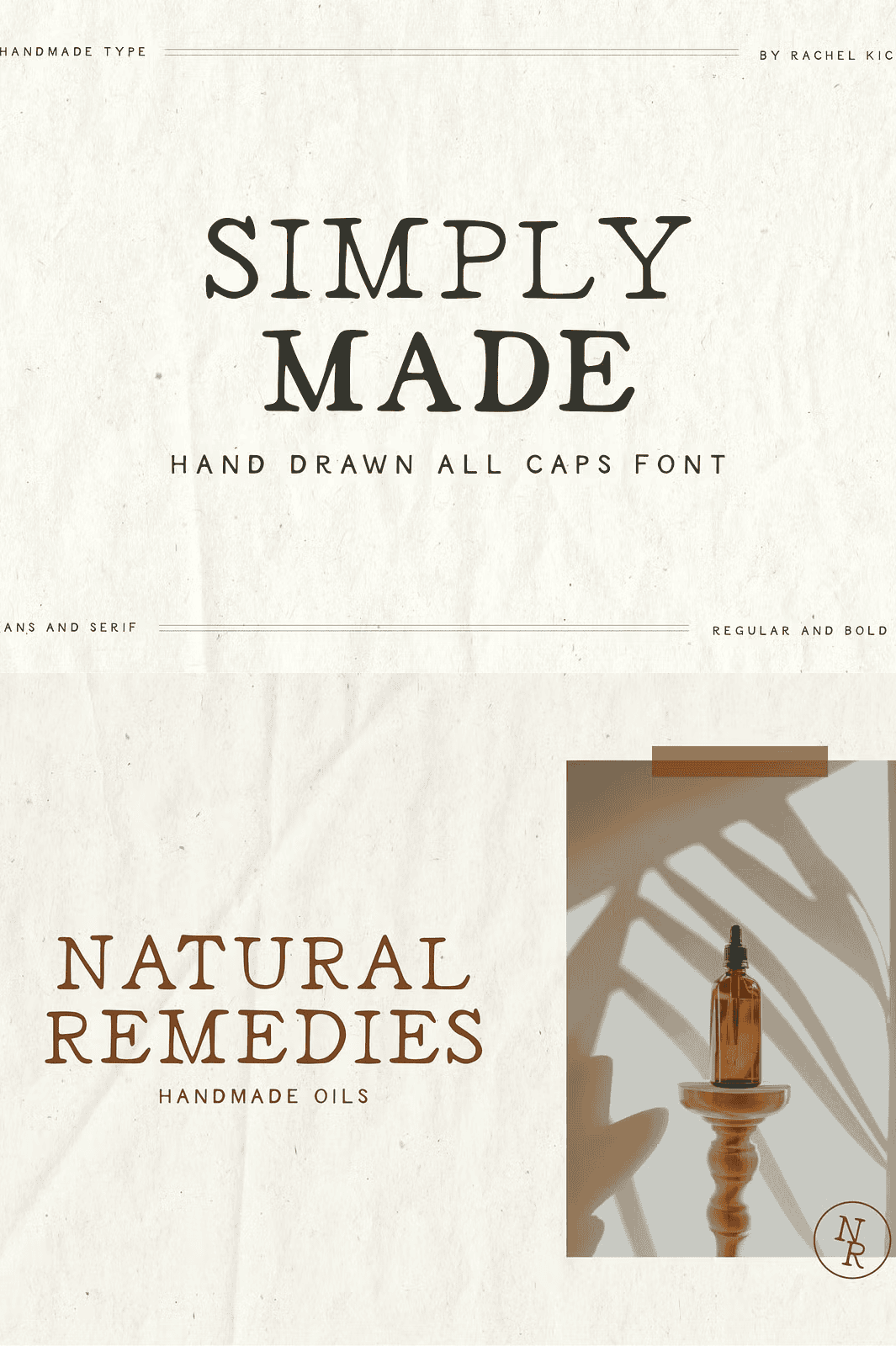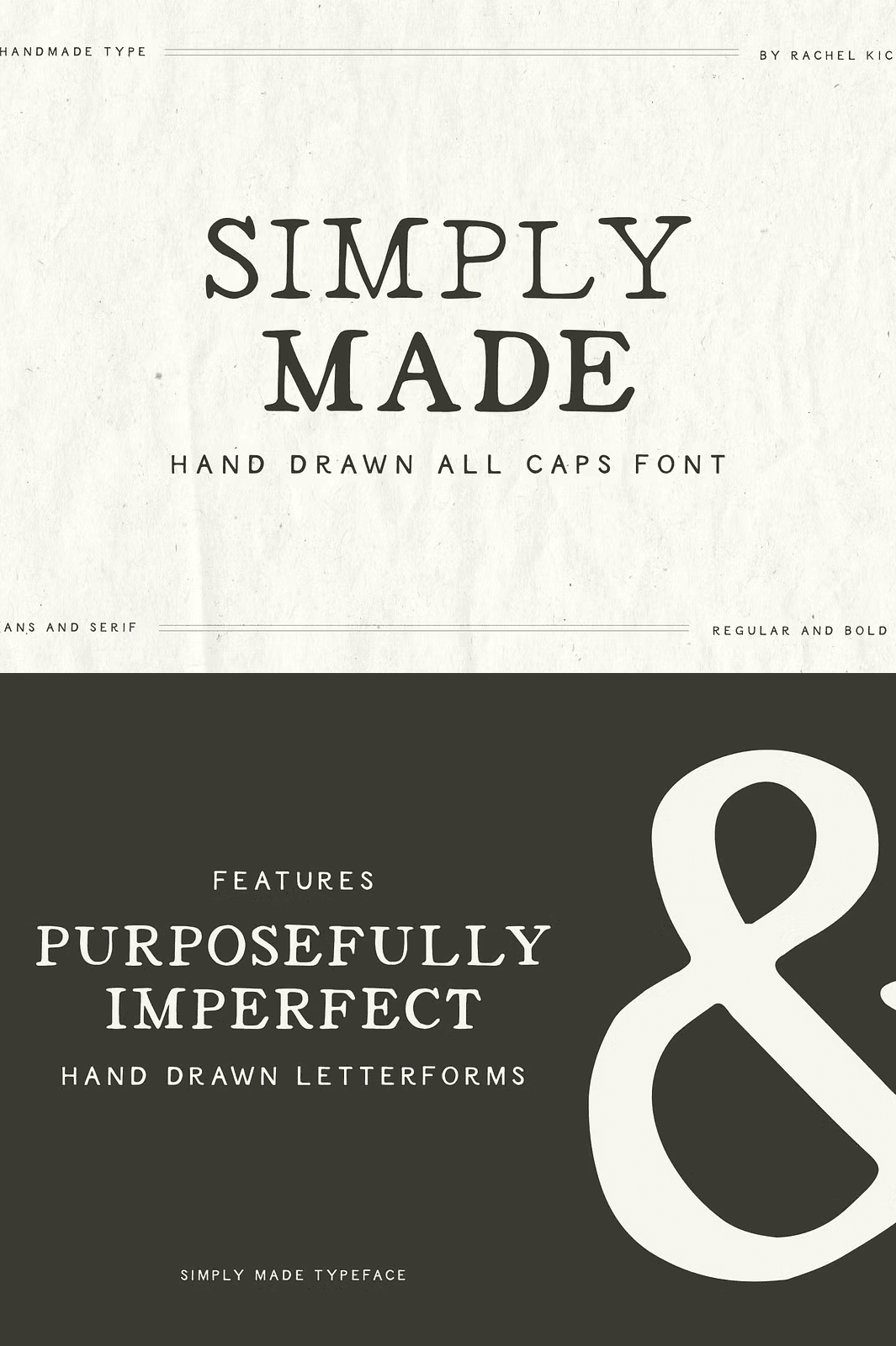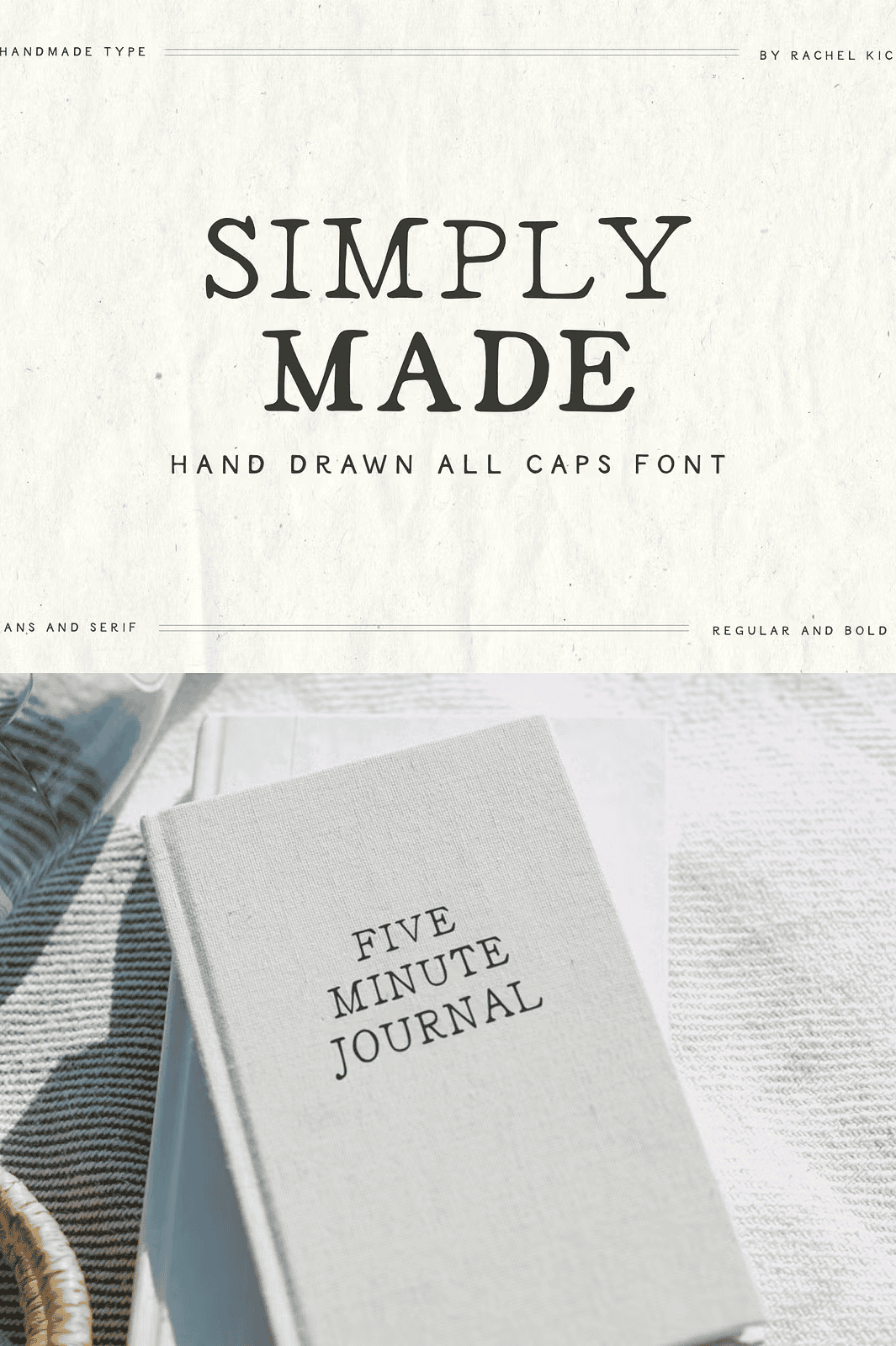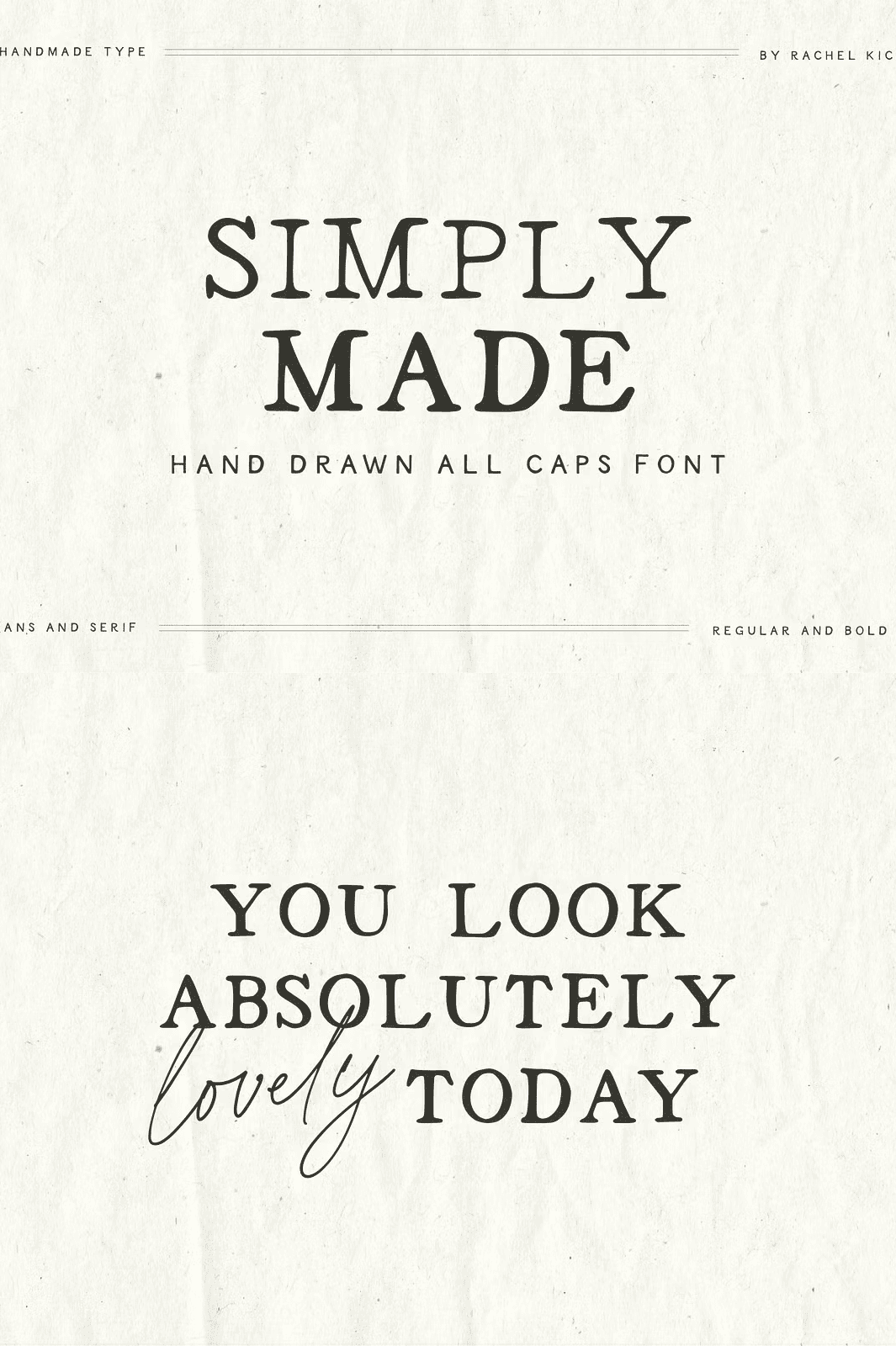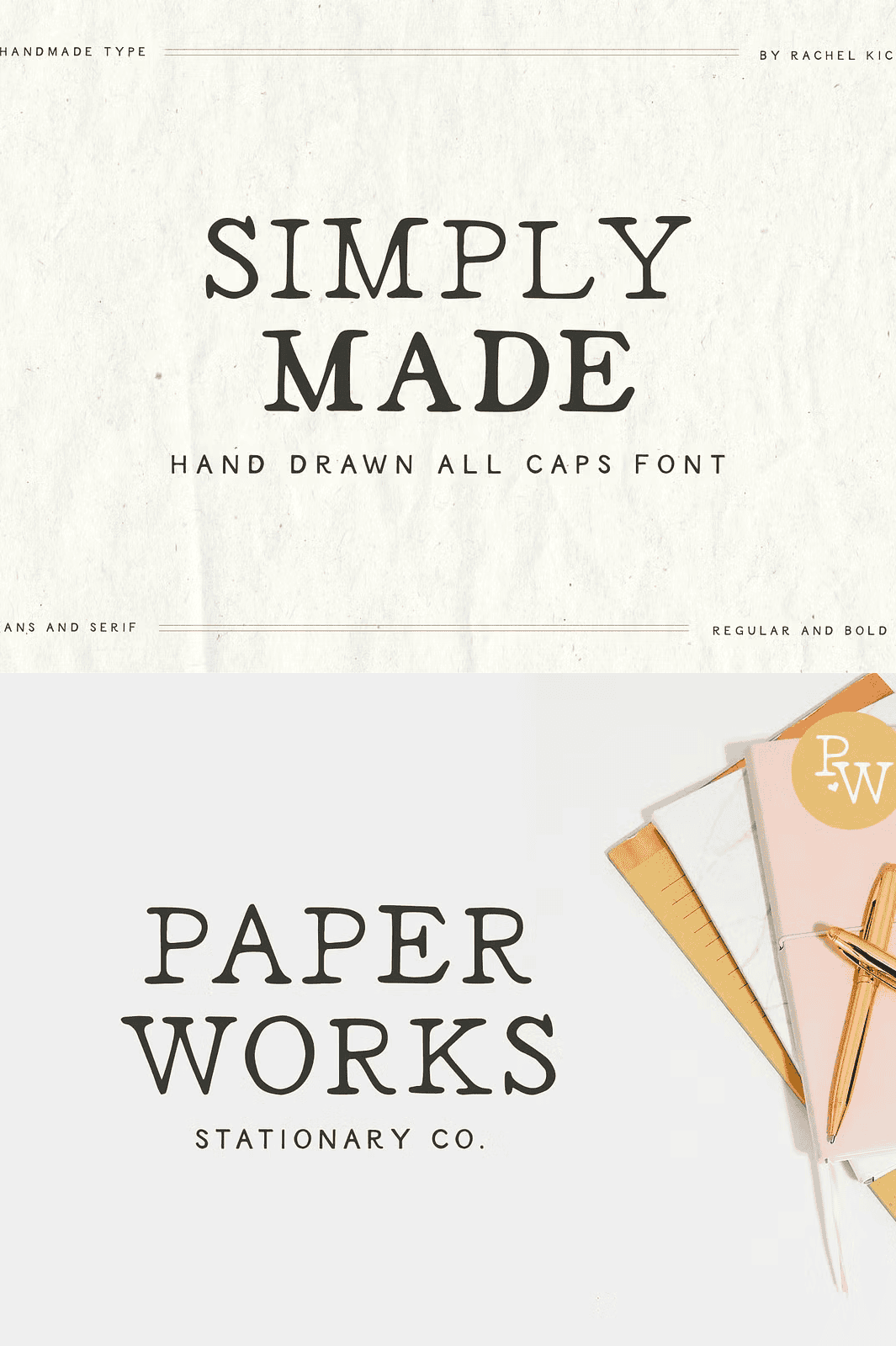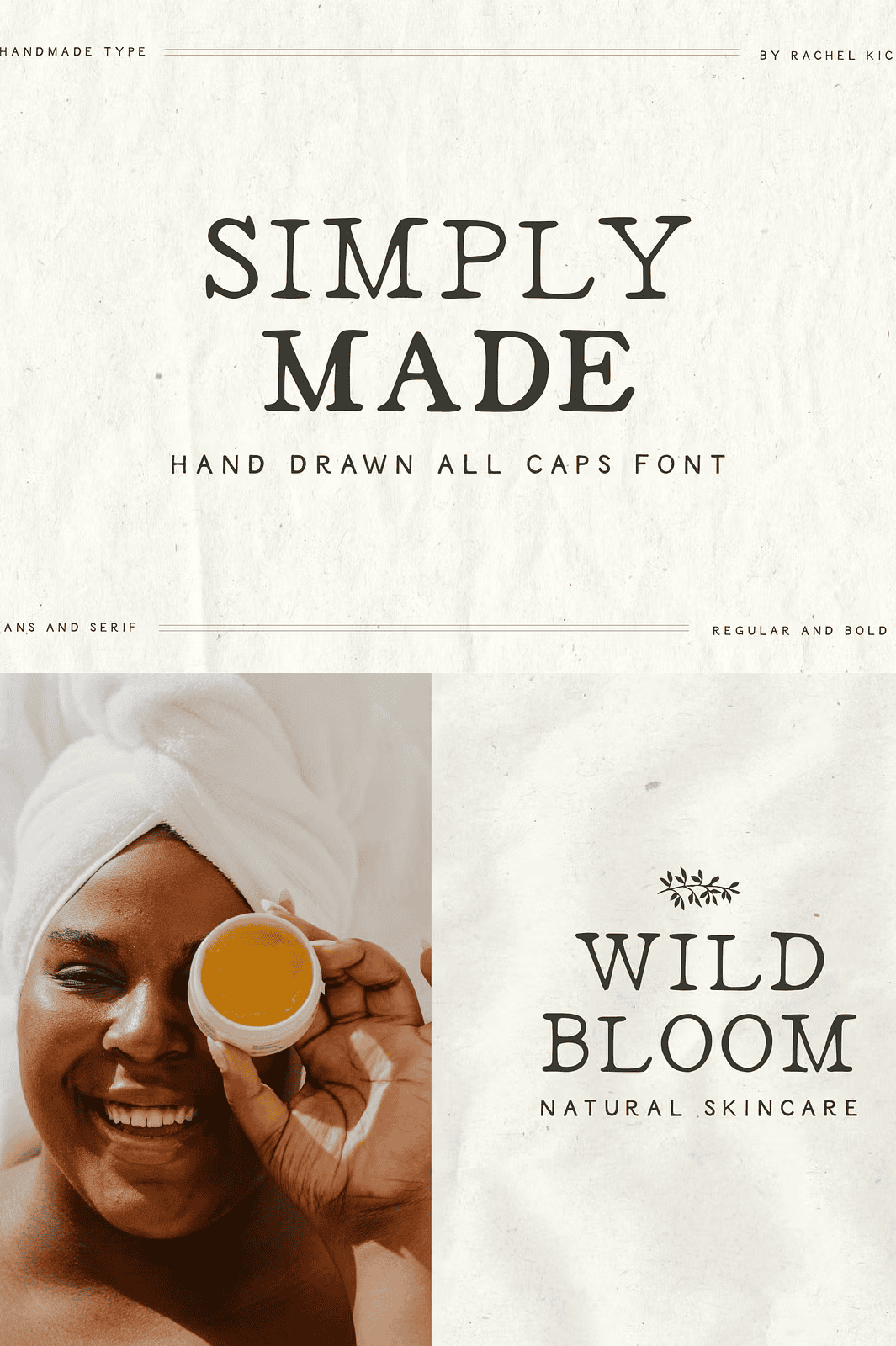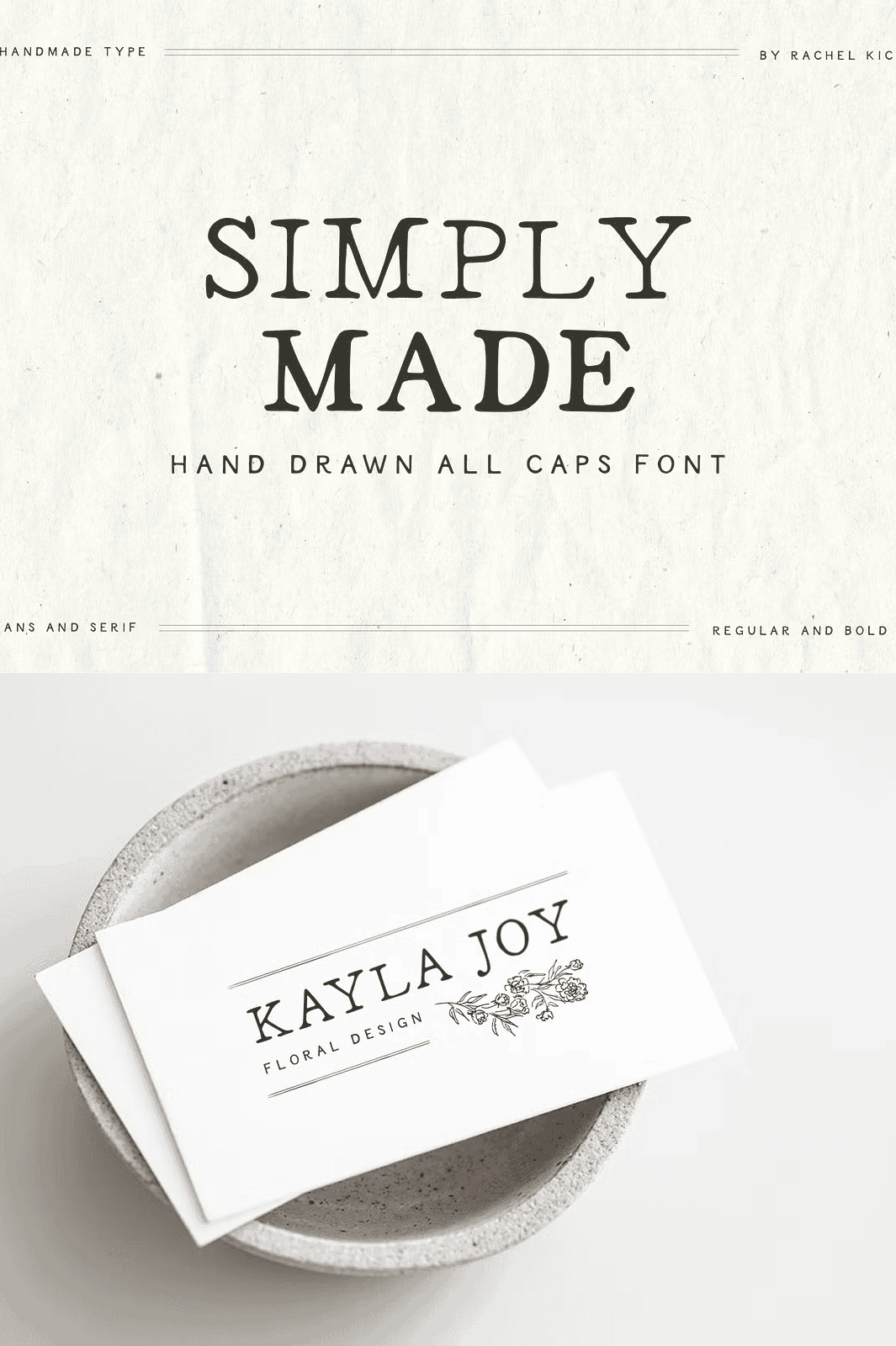
Unleash the raw energy of hand-drawn design with Simply Made—a bold, expressive typeface born from real pencil strokes and genuine human touch. Every letterform was meticulously drawn by hand, capturing the subtle imperfections, organic flow, and tactile charm that digital fonts often miss. This isn’t just a typeface—it’s a creative statement, designed to bring warmth, personality, and soul to your next project.
Three Distinct Styles for Maximum Creative Freedom
Simply Made delivers versatile power through three uniquely crafted styles that work seamlessly together. Whether you’re building a bold headline, crafting a delicate invitation, or designing a vibrant brand identity, the flexibility of this trio ensures you can match the perfect tone for every moment. The styles include:
- Regular – Clean, confident, and naturally flowing for body text and balanced layouts.
- Bold – Heavy, assertive, and eye-catching for high-impact headlines and logos.
- Outline – Delicate, open, and artistic for creative overlays, banners, and standout designs.
These styles don’t just complement each other—they elevate your entire design narrative with unified character and rhythm.
Feel the Texture of Real Hand-Drawn Artistry
Unlike mass-produced digital fonts, Simply Made retains the essence of analog creation. Slight inconsistencies in line weight, irregular joins between strokes, and natural variations in curves give every character a unique presence. This handmade authenticity makes your text feel alive—like it was drawn by an artist, not generated by code. It’s the perfect fit for projects that demand emotional connection, artistic depth, and individuality.
Elevate Every Project with Authentic Personality
Use Simply Made to transform mundane content into memorable visual experiences. Ideal for:
- Branding & logos that stand out with human warmth and creativity.
- Invitations and event designs that convey style, care, and personal touch.
- Packaging and product labels that feel artisanal and intentional.
- Editorial layouts and book covers needing a personal, handcrafted edge.
- Social media graphics and digital ads that gain instant visual appeal.